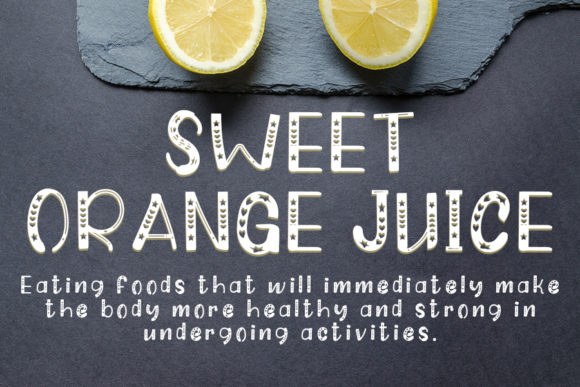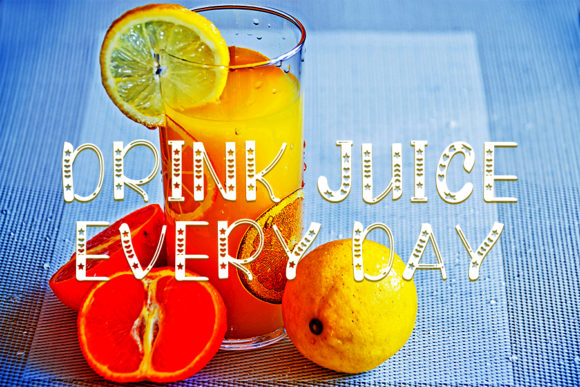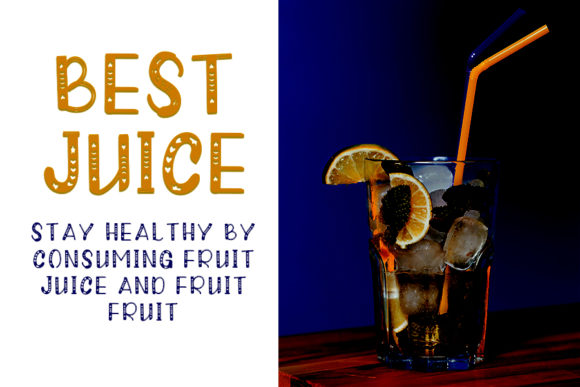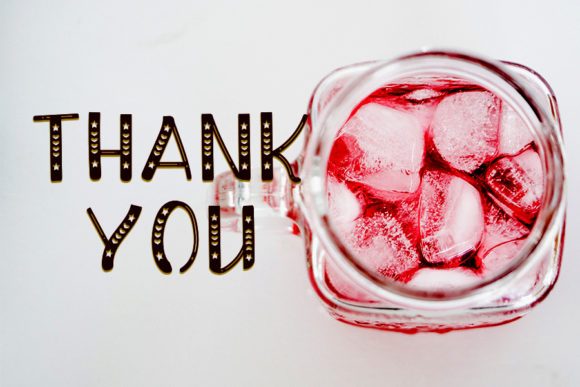
The Perfect Slice of Creativity: Introducing Fresh Apple Font
Do you remember that moment when a single design element brings your entire project to life? For many creatives, it’s the perfect storm of color, texture, and typography that makes a design truly stand out. And today, we’re excited to introduce you to the perfect ingredient to add that extra oomph to your creative ideas: Fresh Apple Font.
This simple yet elegant lettered display font is designed to make your designs shine. Whether you’re working on a logo, social media graphics, or even a wedding invitation, Fresh Apple Font adds a touch of sophistication and whimsy to your work. Its clean lines, rounded edges, and friendly feel make it the perfect choice for designers who want to add a bit of personality to their projects.
Fresh Apple Font Key Features
- Unique Characteristics: Modern sans-serif design with rounded edges and a friendly feel, ideal for digital products and food-related branding
- Character Set: Supports Latin, Cyrillic, and Greek alphabets, with over 900 glyphs and 60 language support
- Font Weight: 6 styles: Light, Regular, Medium, Bold, Extra Bold, Black
Designer Review: Fresh Apple Font
Overall, I’m impressed with the ✨ clean and modern aesthetic of Fresh Apple Font. The designers have done a great job of capturing the essence of a crisp, juicy apple in a typographic form. The font is perfect for any project that requires a fresh and inviting feel.
- ✨ Customizable:** The font comes with multiple weights and styles, making it easy to customize and adapt to different design needs.
- ✨ Friendly tone:** Fresh Apple Font exudes a friendly and approachable tone, perfect for branding, packaging, and other design projects where a warm and inviting feel is essential.
- ⚠️ Limited language support:** The font currently only supports Latin-based languages, which may limit its use in certain design projects.
- ⚠️ Not ideal for complex text:** Due to its modern and playful design, Fresh Apple Font may not be the best choice for projects that require complex or technical text.
Overall, I think Fresh Apple Font is a great addition to any designer’s toolkit, but it’s essential to understand its limitations and use it judiciously. With some careful planning and consideration, this font can add a delightful touch to your design projects.
Tips for Getting the Most Out of Fresh Apple Font
Here are a few tips to help you get the most out of Fresh Apple Font:
- Use Fresh Apple Font for headings and titles to add a touch of elegance and sophistication.
- Pair Fresh Apple Font with other fonts to create a unique and eye-catching combination.
- Experiment with different font sizes and styles to create visual interest and emphasis.
Here are a few common use cases for Fresh Apple Font:
Q: Does the Fresh Apple Font support ligatures and contextual alternates?
Yes, the Fresh Apple Font includes ligatures and contextual alternates. These features can be accessed by using OpenType-savvy software applications, such as Adobe Creative Cloud. The font’s ligature and contextual alternate features can add an extra layer of sophistication and readability to your designs.